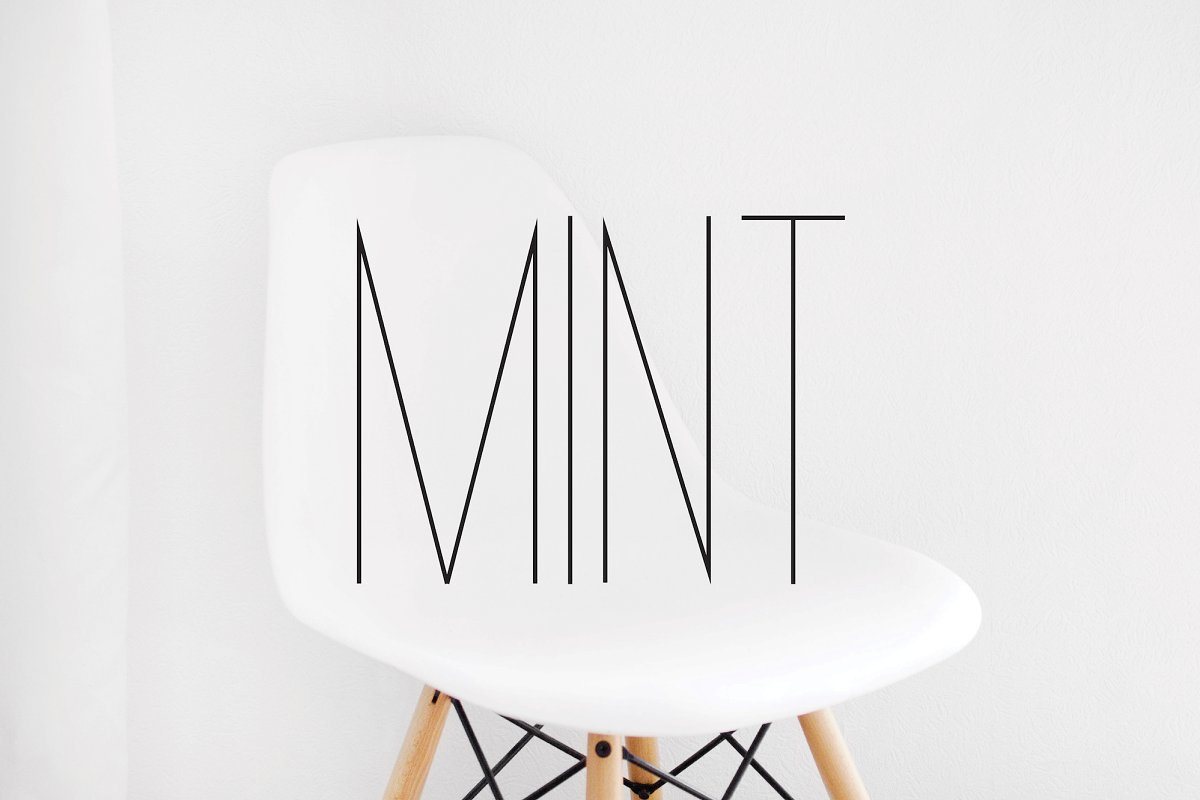
Mint Font
Mint Font is perfect for fresh lifestyle branding, organic wellness products, spa and beauty communications, healthy food packaging, financial technology startups, clean energy companies, refreshing beverage marketing, and invigorating advertising campaigns. This refreshing typeface works beautifully in both digital applications and print media where freshness and revitalizing energy are essential design elements.
What makes Mint Font so exciting is its crisp interpretation of natural freshness and revitalizing energy through clean letterforms that seem infused with the same invigorating clarity and pure refreshment that defines the most awakening natural experiences. The font features fresh characters with crisp proportions, clean curves, and refreshing details that create an immediate sense of renewal, purity, and the energizing power of fresh starts and clean living. Its invigorating personality and natural heritage make it ideal for brands seeking to communicate freshness, health consciousness, and the transformative power of clean, pure experiences while appealing to audiences who value wellness, sustainability, and the revitalizing energy of natural freshness.
The Mint Font family includes multiple weight variations with different freshness intensities, along with clean alternates and refreshing ornamental elements. Each style maintains the typeface's crisp character while offering comprehensive character sets including fresh numerals, clean punctuation marks, and special symbols designed to enhance wellness communications and refreshing branding efforts across various invigorating contexts.
This extraordinary typeface represents the perfect fusion of natural freshness and contemporary design functionality for wellness and lifestyle industries. Whether you're developing organic product identities, creating spa service materials, or designing healthy lifestyle campaigns, Mint Font Free Download provides the refreshing clarity and versatility needed to energize health-conscious audiences. The font's fresh appeal makes it particularly effective for wellness brands, organic food companies, clean technology startups, and businesses celebrating the power of freshness, purity, and the revitalizing energy of clean living.
The carefully crafted fresh details and optimized invigorating performance in Mint Font ensure both natural authenticity and clear communication across all wellness applications. Its refreshing presence makes it perfect for clean branding, fresh marketing materials, and invigorating communications where its full mint character can create lasting connections with audiences seeking freshness, renewal, and the pure energy that comes from embracing clean, healthy, and naturally refreshing lifestyle choices.